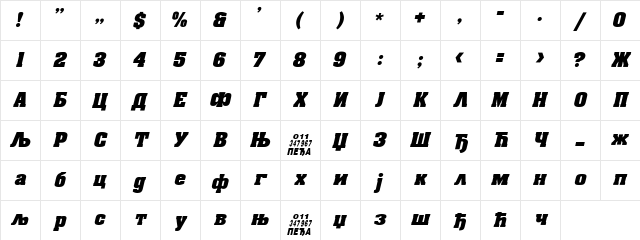
C_Aardvark Italic
Design Context for C_Aardvark
C_Aardvark is a composed and adaptable typeface that performs quietly and consistently across a wide range of design contexts. The slanted form adds forward momentum and visual energy.
Pro Tip: Use C_Aardvark for emphasis, pull quotes, and subheadings where its slanted energy can add rhythm to the layout.